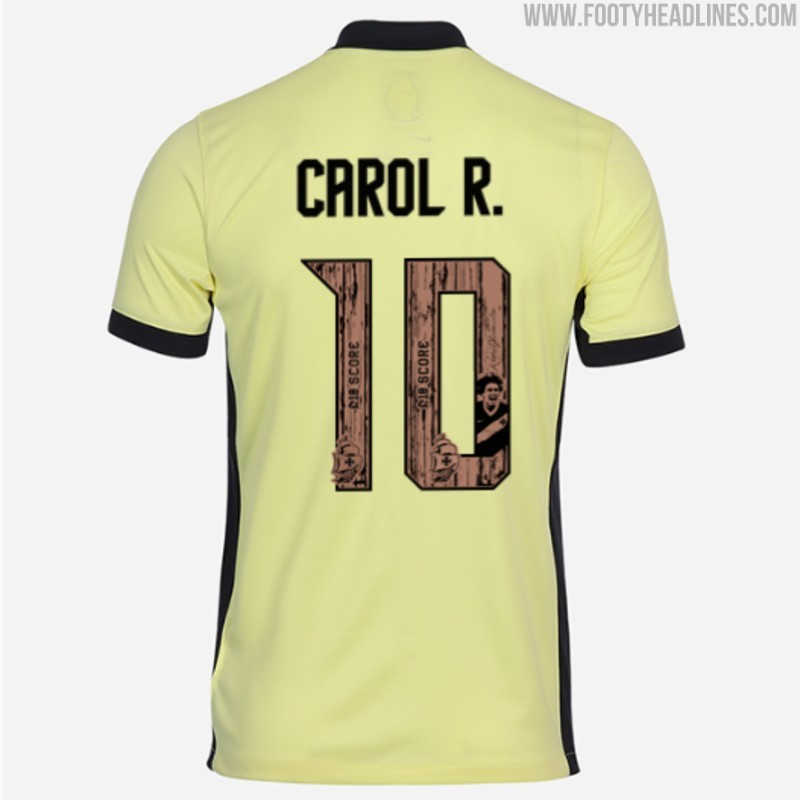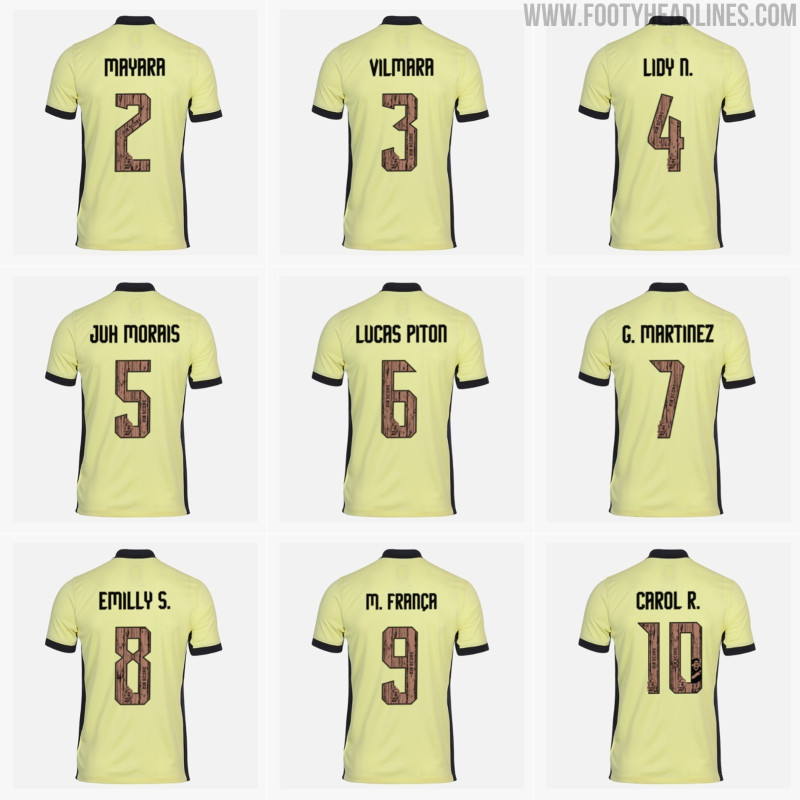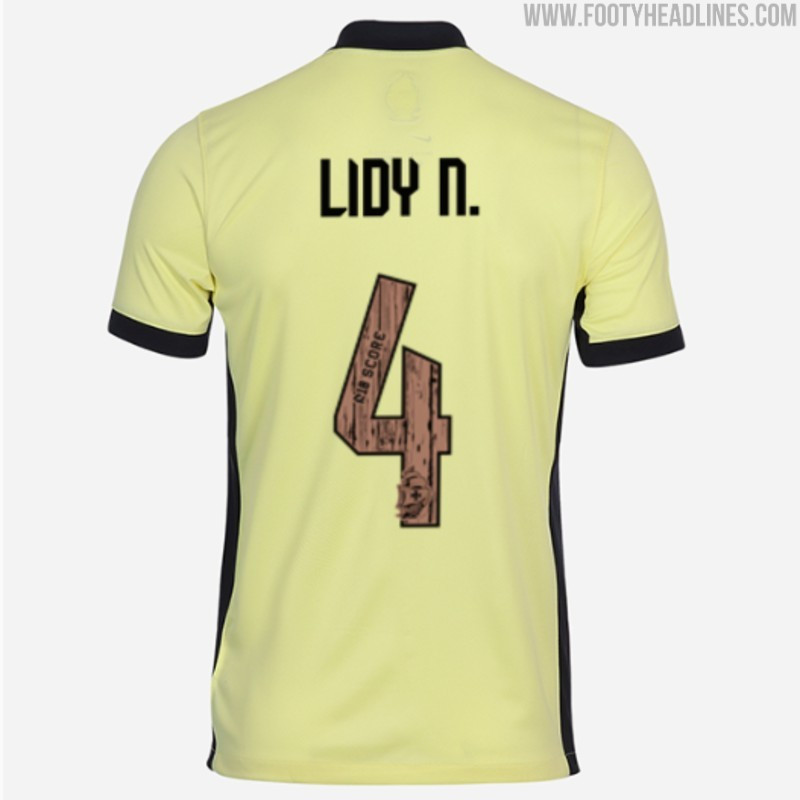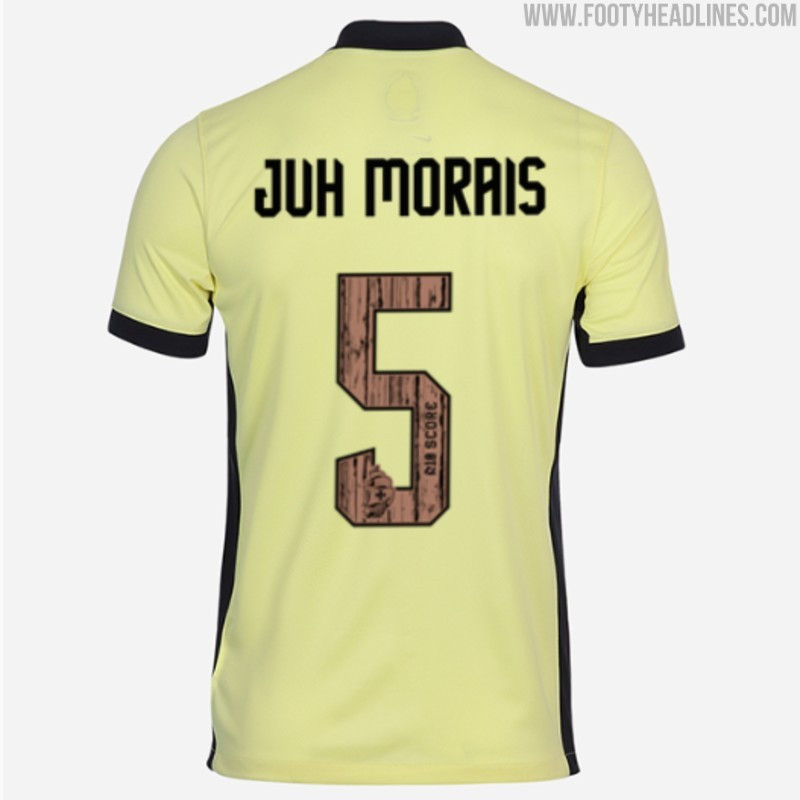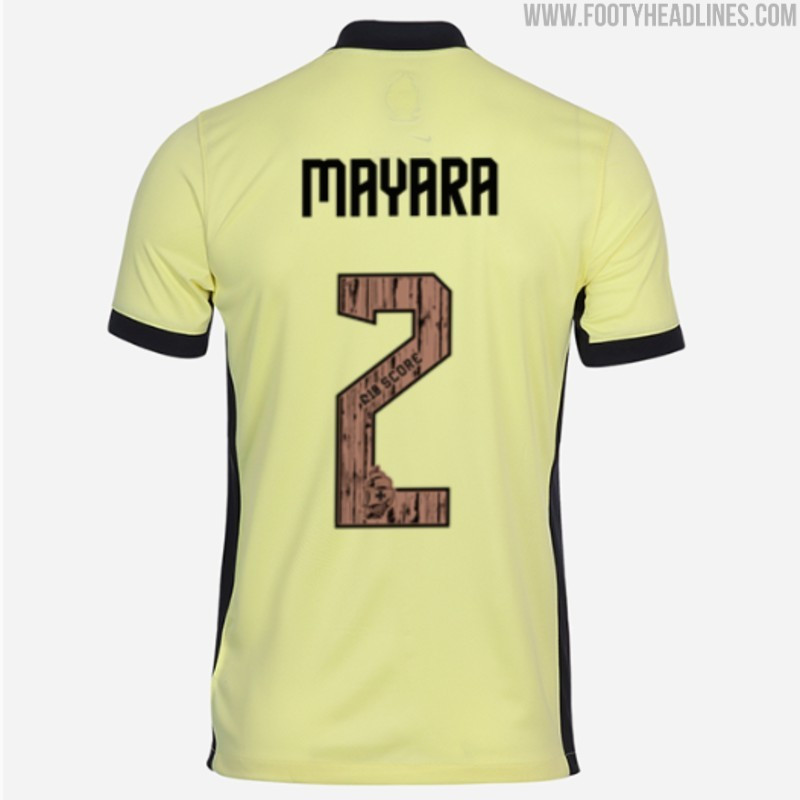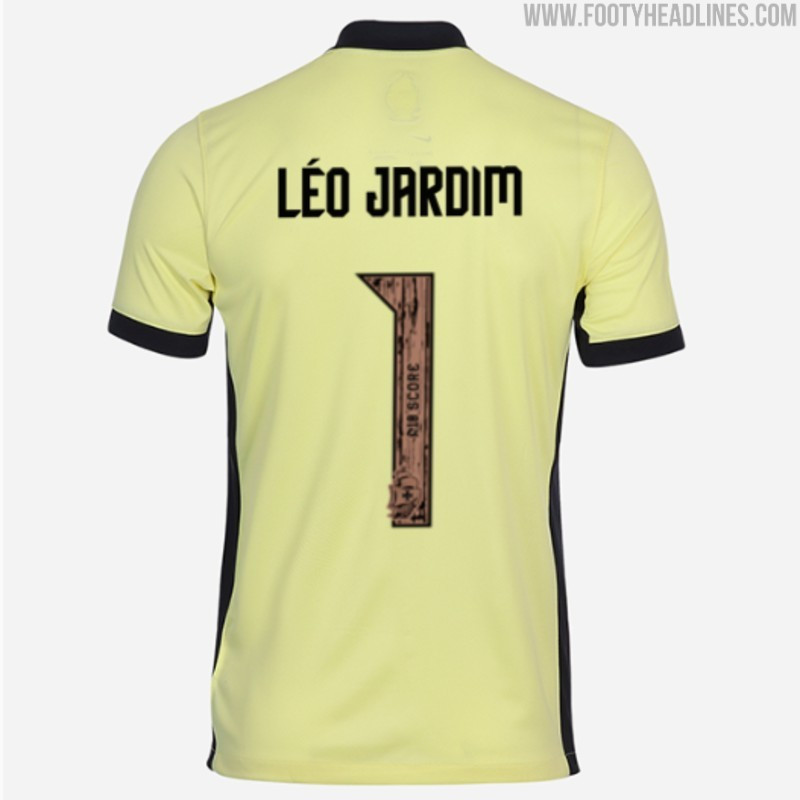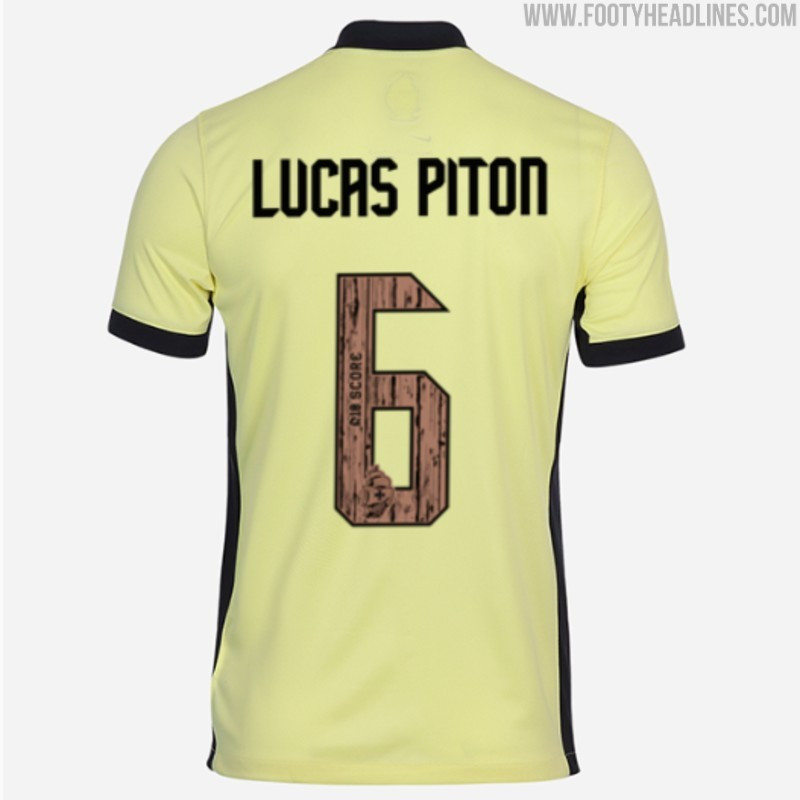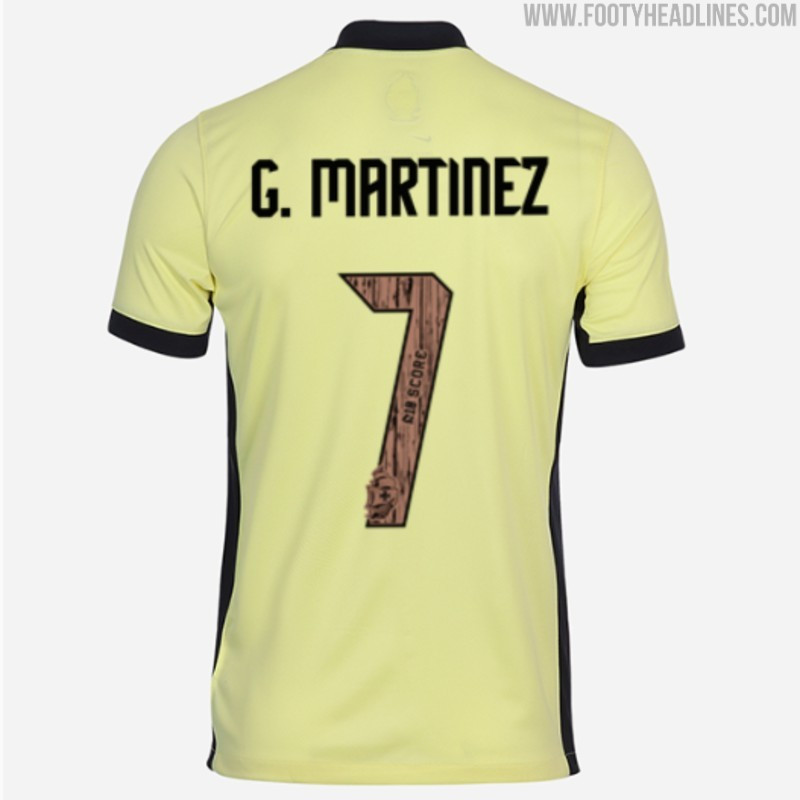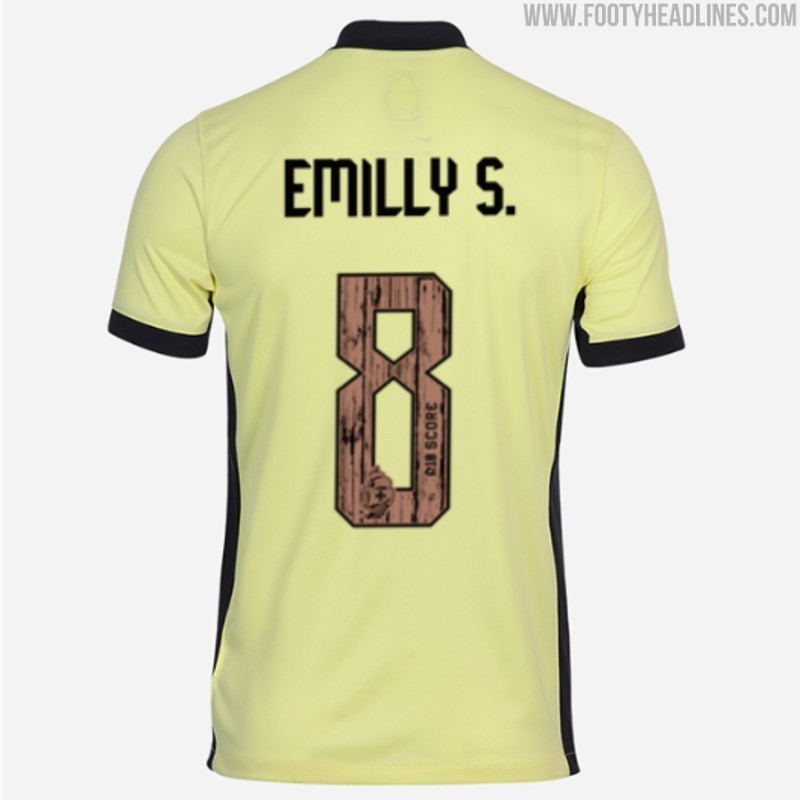
Nike Vasco da Gama 26-27 Third Kit Features Wood-Grain Font
- Kit Identity: The text introduces the new Nike Vasco da Gama 26-27 third kit, highlighting a unique customization detail.
- Unique Font Feature: The kit's numbers feature a distinctive wood-grain texture in shades of brown, making it a standout design element.
- Maritime Design Concept: This textured wooden font is part of the kit's broader maritime exploration concept, designed by Nike to honor the timber hulls of historical Portuguese navigational vessels.
Vasco da Gama's brand-new 26-27 third kit comes with a unique customization detail.
Vasco da Gama 26-27 Third Kit Font
The Vasco 26-27 third kit numbers feature a distinctive wood-grain texture in shades of brown. Designed by Nike to complete the kit's maritime exploration concept, which pairs a pale yellow base reminiscent of aged sails with a caravel ship graphic inside the collar, the textured wooden font pays homage to the timber hulls of historical Portuguese navigational vessels.